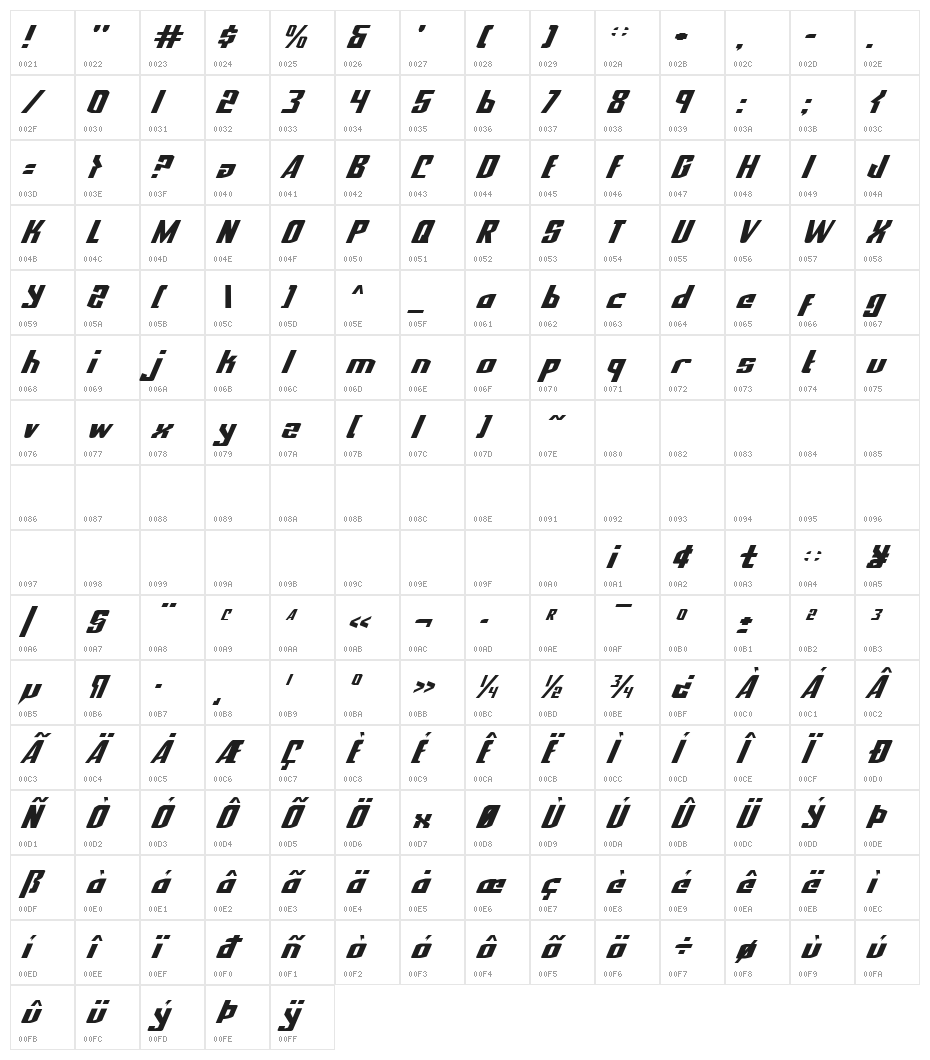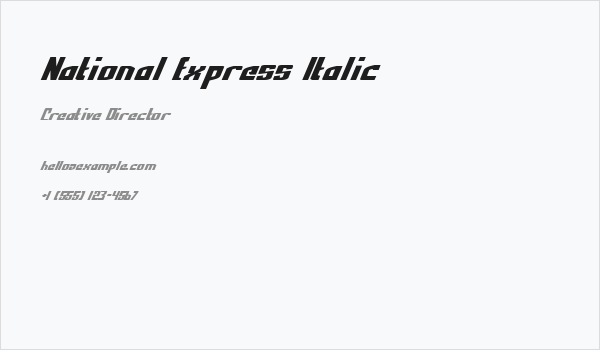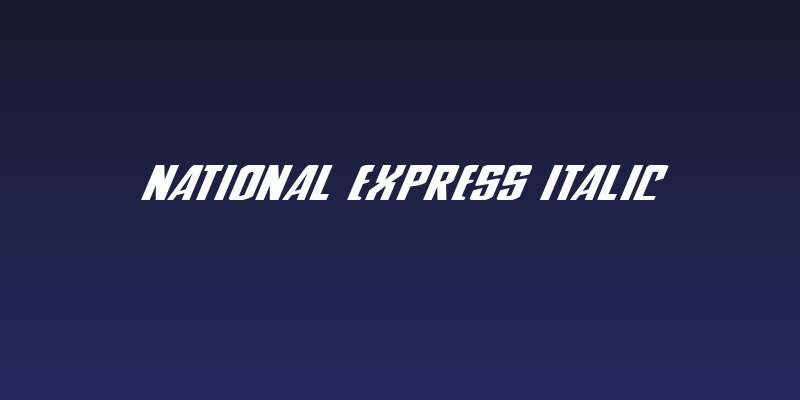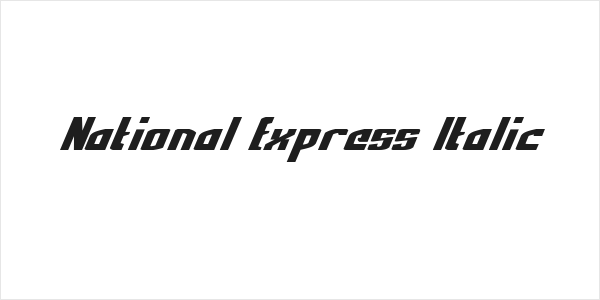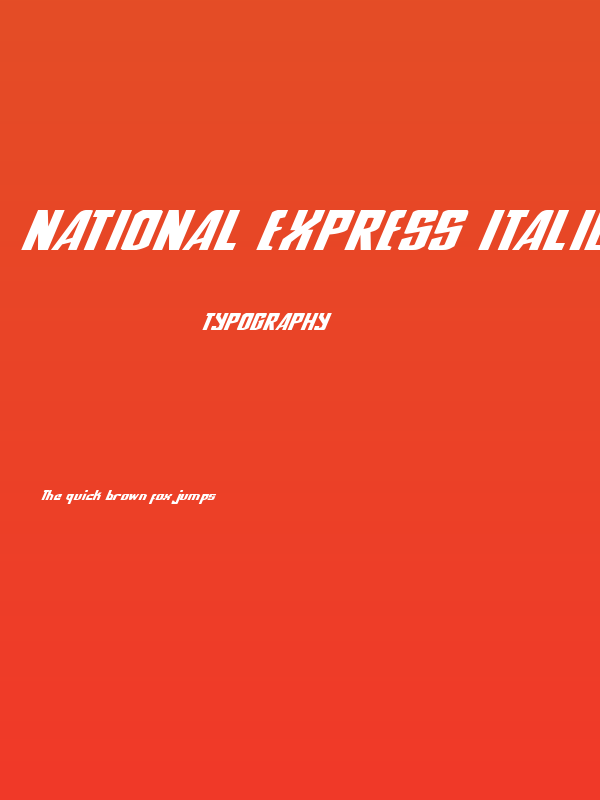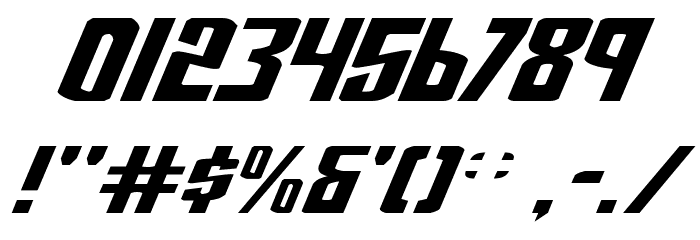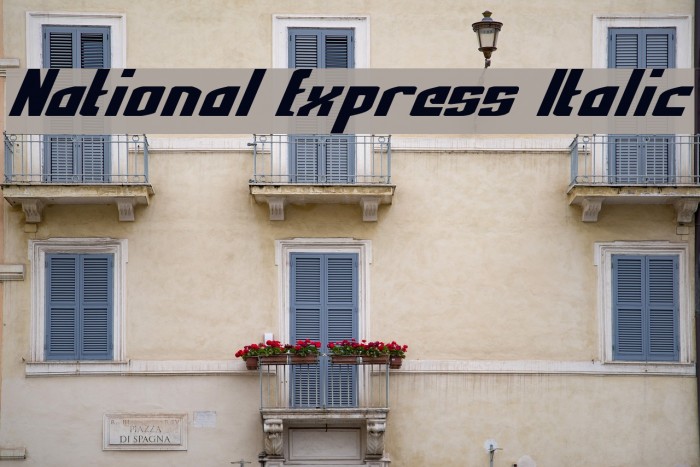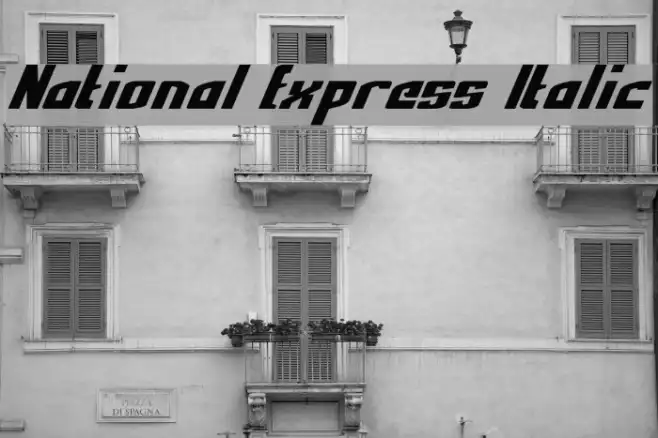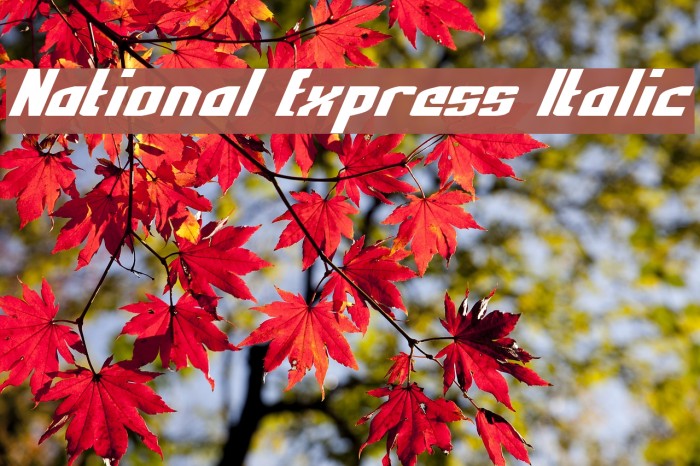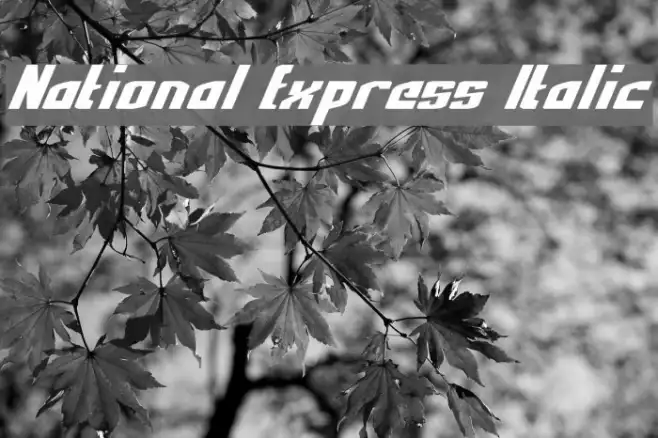
National Express Italic Font
National Express Italic Description
This font features a bold and dynamic style with a distinct italic slant, giving it a sense of movement and urgency. The characters are sharply angled, with strong geometric shapes and a consistent stroke width that conveys a modern and assertive appearance. The uppercase letters are particularly striking, with a blocky and robust design that commands attention. The lowercase letters maintain the same angular style, ensuring consistency across the typeface. Numbers and special characters are designed to match the bold and energetic feel, making them suitable for impactful displays. The overall design is clean and uncluttered, allowing for easy readability despite its boldness.
| Use Case | Logos, Headlines, Posters |
| Proposed Projects | Ideal for branding, sports team logos, dynamic posters, and any project requiring a bold, energetic typeface. |